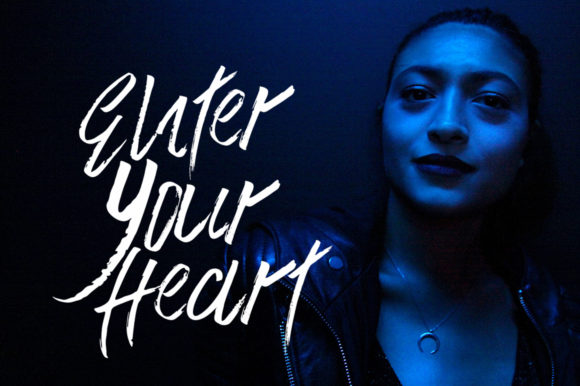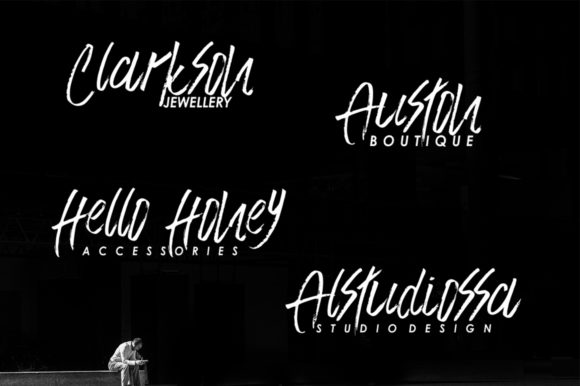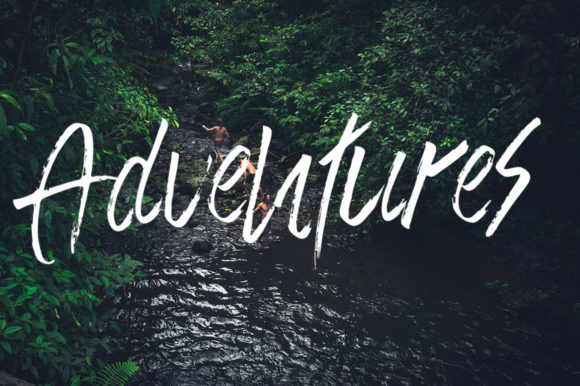
HomeScript FontsWesteros Font Script Fonts Westeros Font FacebookXPinterestWhatsApp Westeros Font Poster 2 Westeros Font Poster 3 Westeros Font Poster 4 About Westeros Font Westeros is a textured brush font with a contemporary twist. Get inspired by its bold feel! DOWNLOAD NOW People also explored Xecrian Font Baguede Font Harmonious Font Yhasmeera Font Cute Tree Christmas Font Rosemary Font Goshty Doll Font Lonystar Font Angeline Children Font 262 0 TagsWesteros Font Previous articleBelly Betty FontNext articleApocalypse Font LEAVE A REPLY Cancel reply Comment: Please enter your comment! Name:* Please enter your name here Email:* You have entered an incorrect email address! Please enter your email address here Website: Save my name, email, and website in this browser for the next time I comment. Personal Use Free Baby Magnolia Personal Use Free Read more about this font Senza Bella Personal Use Free Read more about this font Black Personal Use Free Read more about this font Electroharmonix Personal Use Free Read more about this font BLOG Elegant Wedding Invitation Fonts – Handwritten & Script Fonts Elegant Wedding Invitation Fonts Your wedding day is one of the most important moments of your life, and every detail matters—including your invitation design. Our... Using Fonts in Digital Marketing: Tips to Strengthen Your Brand Identity Where to Buy American Fonts Online in 2024 Modern Sans-Serif Fonts That Brands Love in 2025